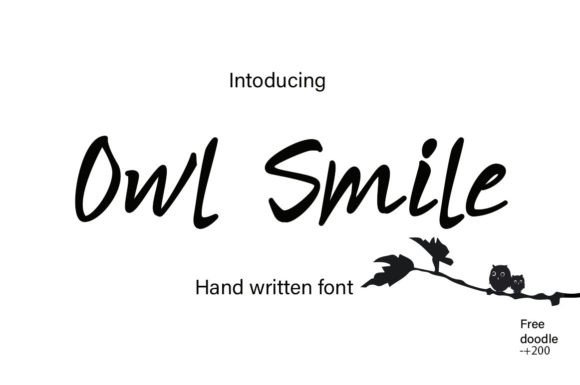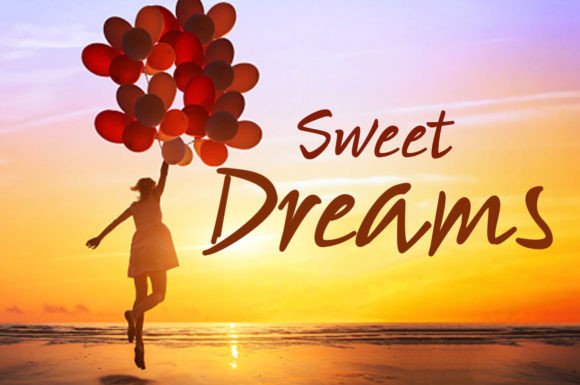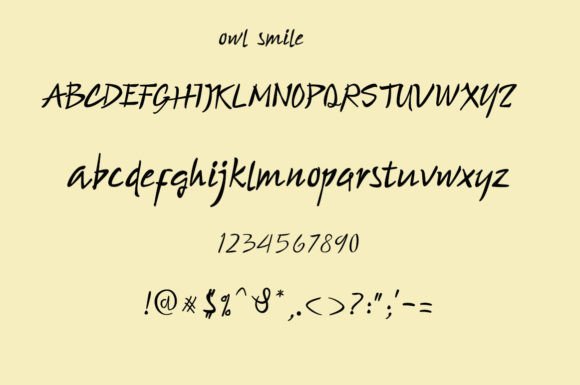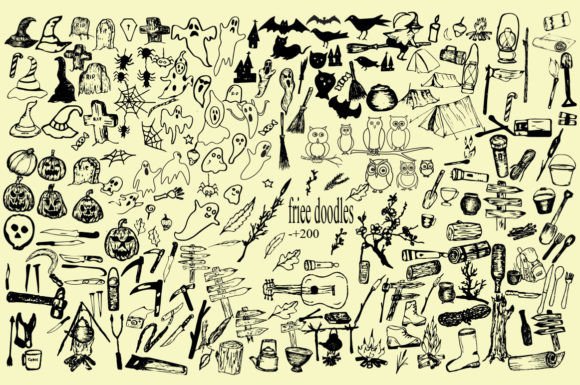
About Owl Smile Font
“Owl Smile” is a cute handwritten font that radiates charm and playfulness. This font is a wonderful choice for various applications, whether you’re using it for cartoon titles, magazine covers, children’s games, or any creative project that aims to bring joy and happiness to its audience.
The font’s cute and whimsical design is characterized by its friendly and approachable appearance. It adds a touch of youthful energy and lightheartedness to your designs, making them engaging and delightful. “Owl Smile” can help you create visuals that resonate with a sense of fun and play.
In the world of design, fonts are instrumental in conveying mood, style, and visual identity. “Owl Smile” excels in these aspects by offering a handwritten style that is both cute and full of character. Its aesthetics infuse your designs with a sense of joy and positivity, making it a perfect choice for projects that aim to spread happiness.
In summary, “Owl Smile” is more than just a font; it’s a cute and playful design tool that can bring joy and happiness to your creative projects. Whether you’re working on designs for children or simply want to add a touch of whimsy to your work, “Owl Smile” is the font that can help you create visuals that are both endearing and delightful.